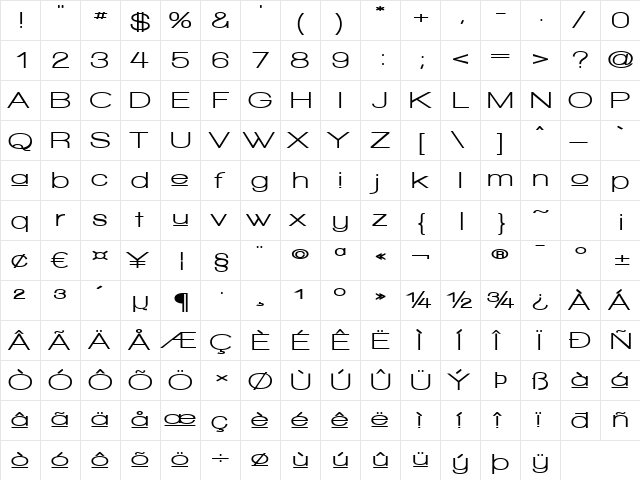
Walkway Upper Expand Ultra Regular
Design Context for Walkway Upper Expand Ultra Typeface
Walkway Upper Expand Ultra takes a measured approach to typography — its balanced proportions and neutral character make it a reliable workhorse for both digital and print work.